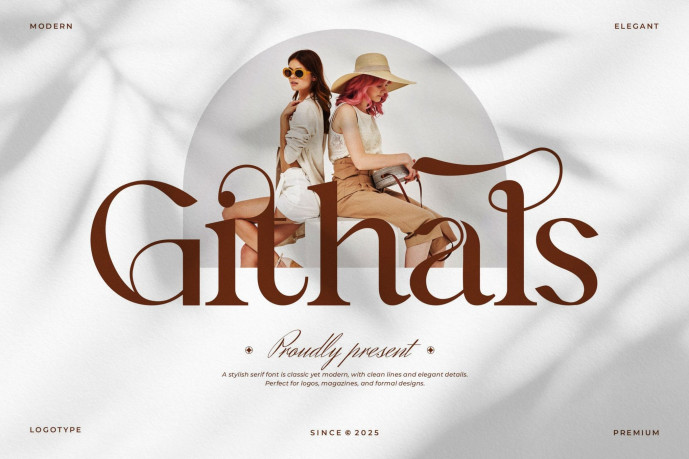
Githals Modern Serif Font
Githals Modern Serif Font is a modern and minimalist font type for all branding and logo designs. This modern and minimalist Serif font has a beautiful character. This font is suitable for invitation card designs, cool logos, movie titles, movie names, business cards, book titles, brand names, and various other designs.
Githals Serif is a smooth serif font that exudes sophistication and the moment. Its stylish ligatures make this font a perfect partner for any project.
• Ligature and alternate